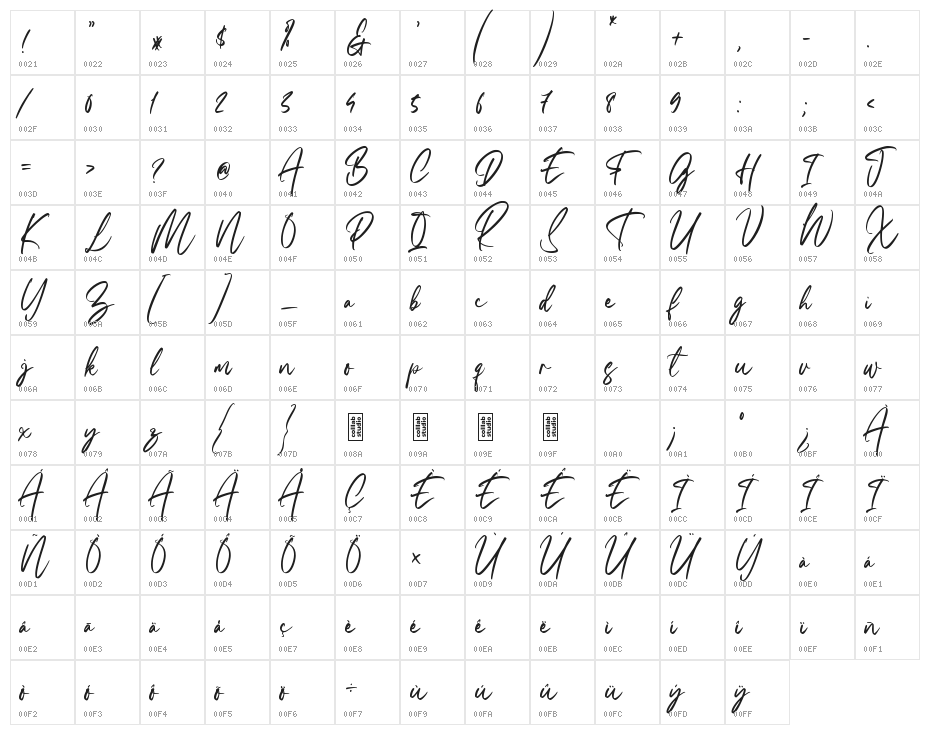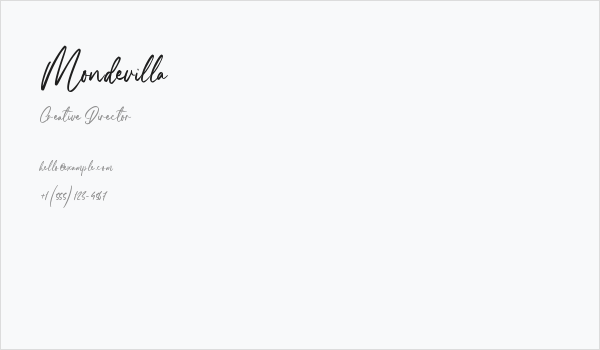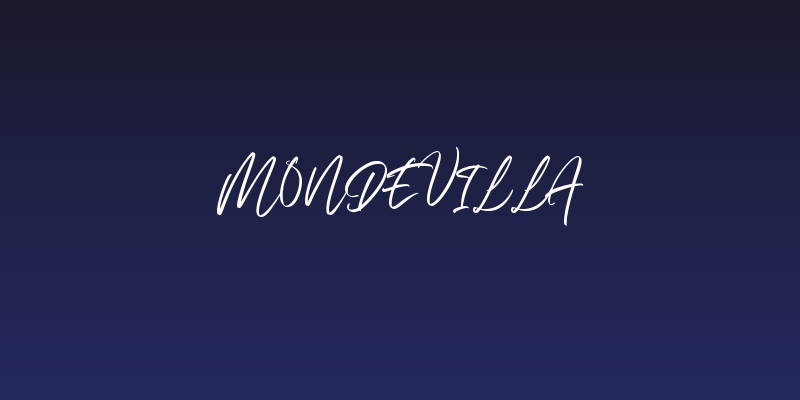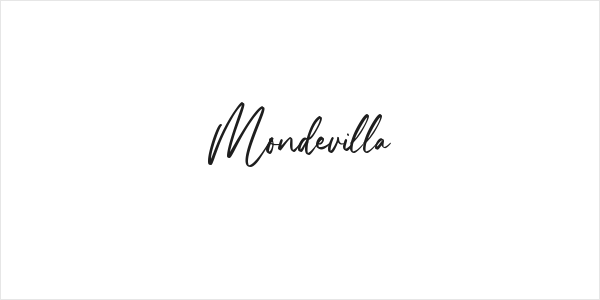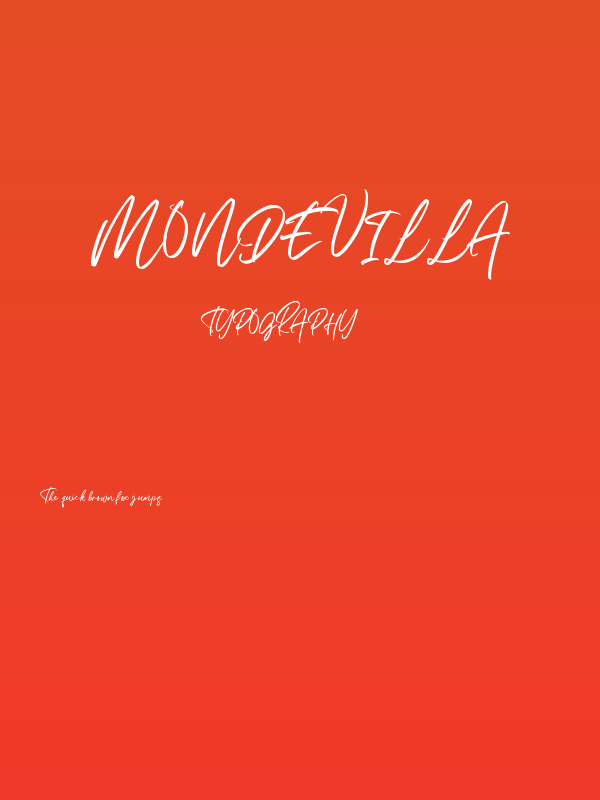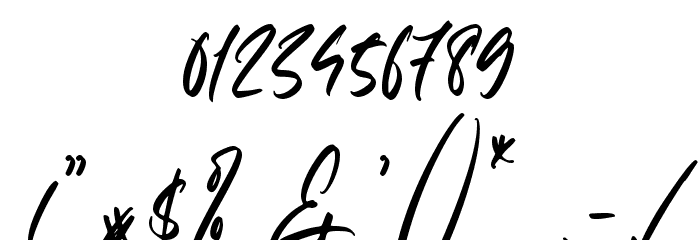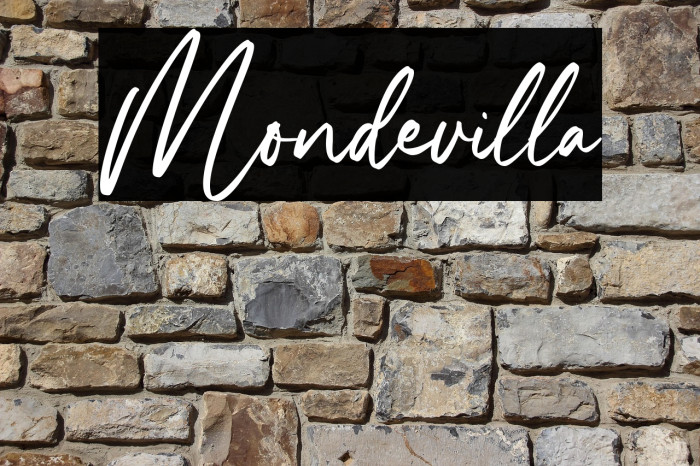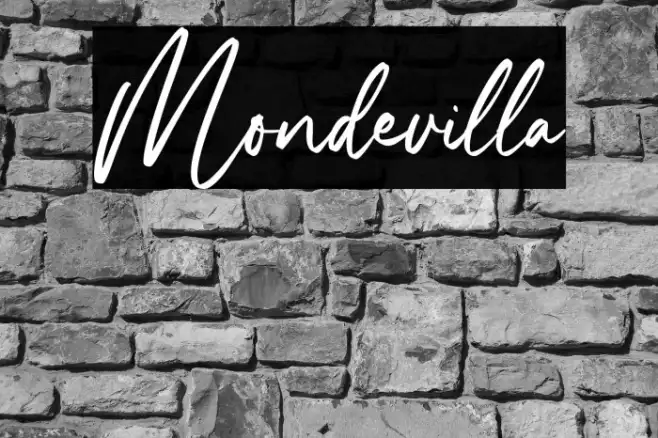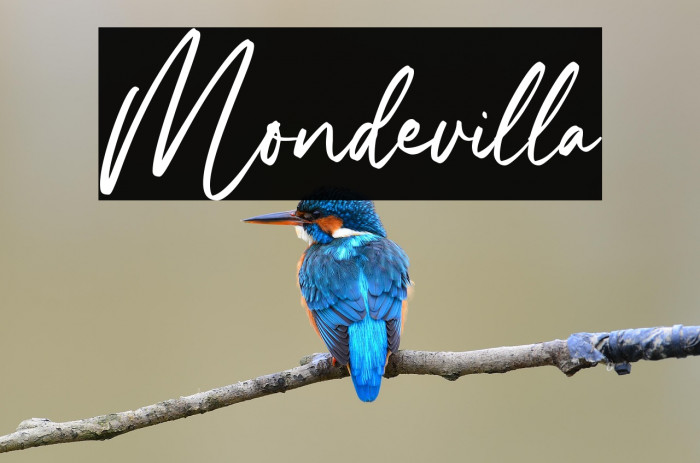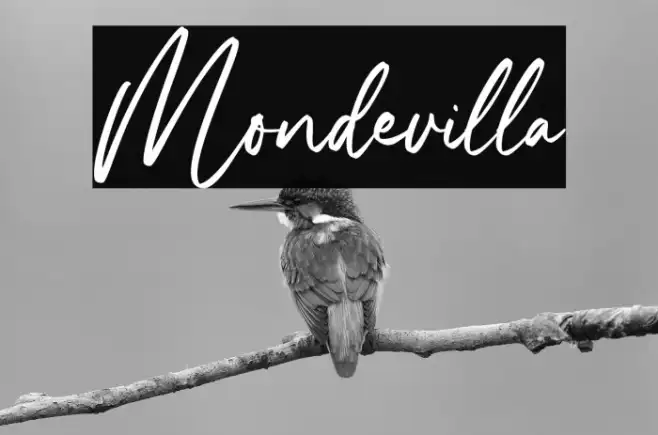
Mondevilla Font
Mondevilla Description
This font exudes a dynamic and expressive character, with its fluid, handwritten style that mimics the natural flow of cursive writing. The strokes are bold and confident, with a slight slant that adds to its energetic appearance. Each letter connects seamlessly, creating a cohesive and harmonious look. The uppercase letters are particularly striking, with their elongated forms and elegant curves. The lowercase letters maintain a consistent rhythm, enhancing readability while preserving the artistic flair. The numbers and special characters are crafted with the same attention to detail, ensuring a uniform aesthetic throughout.